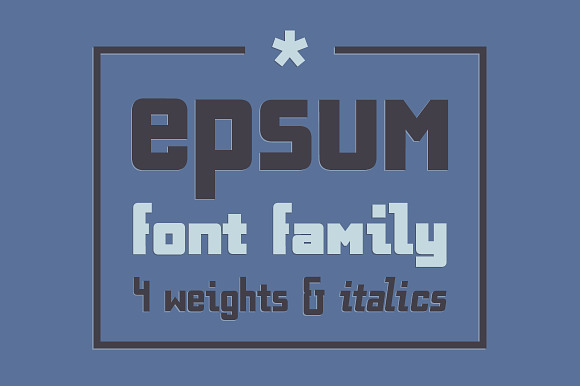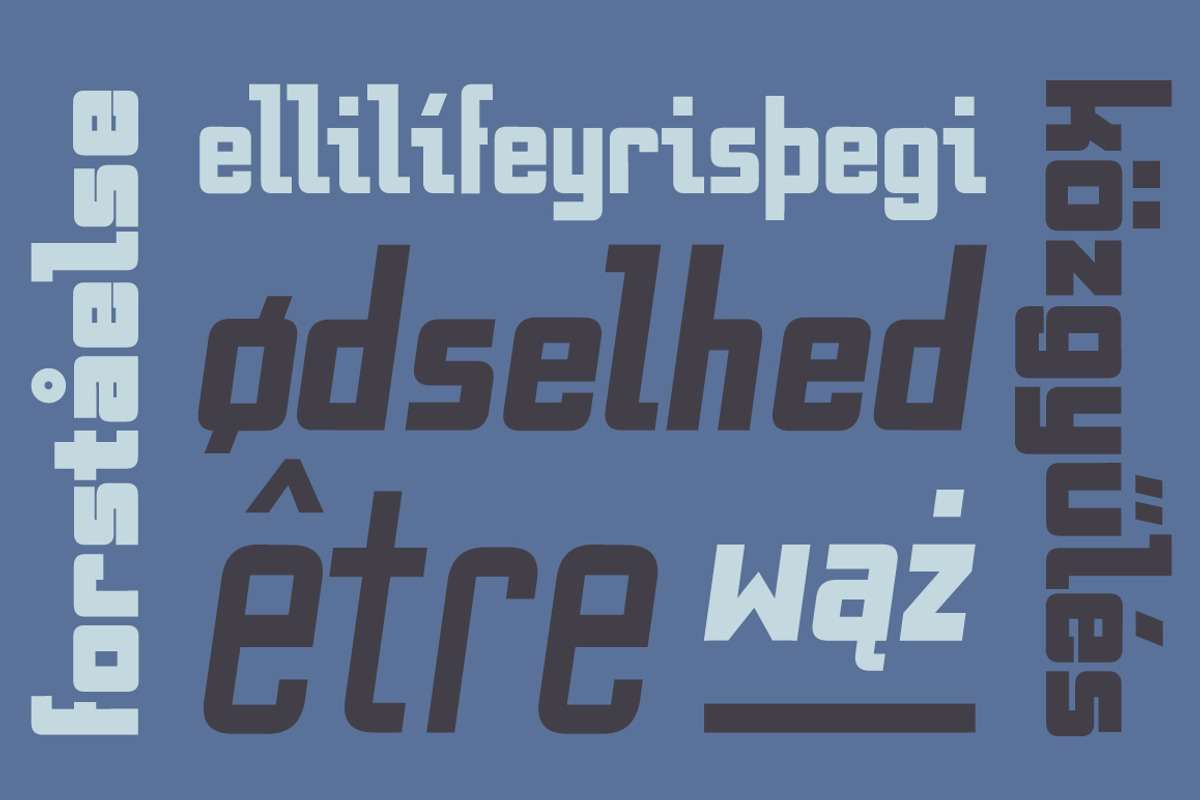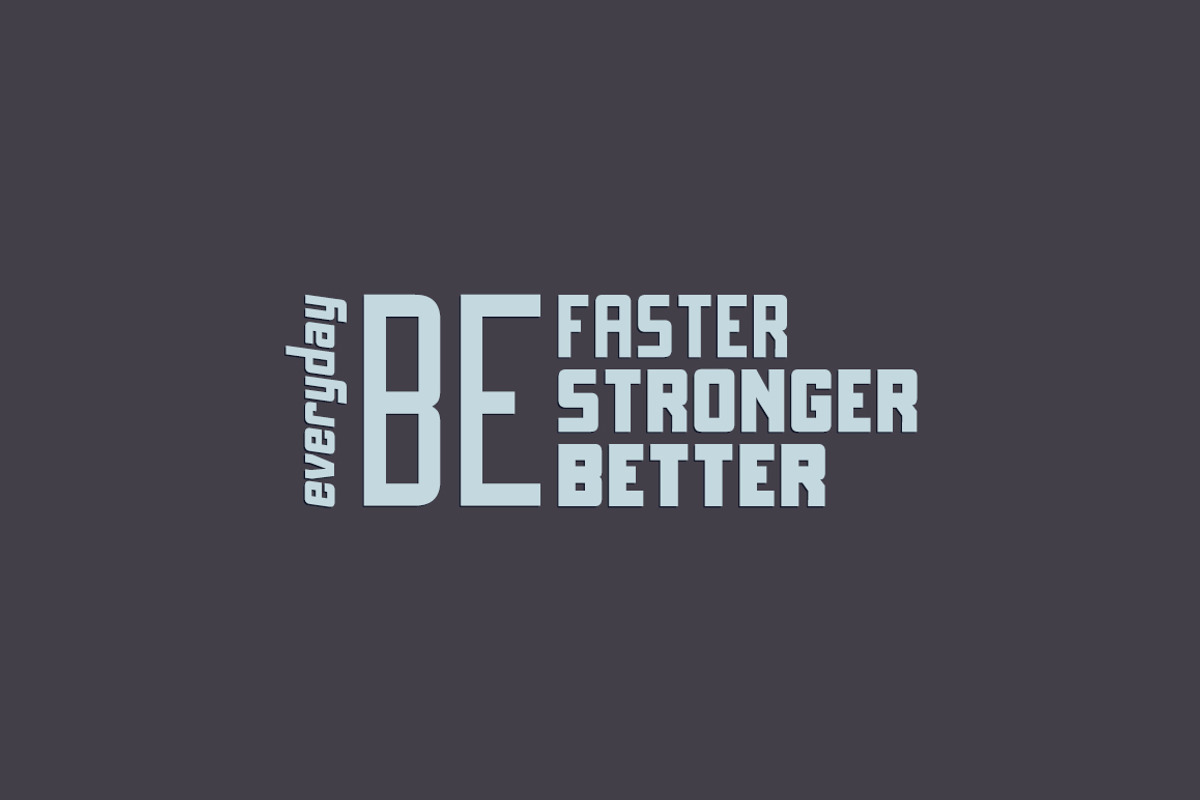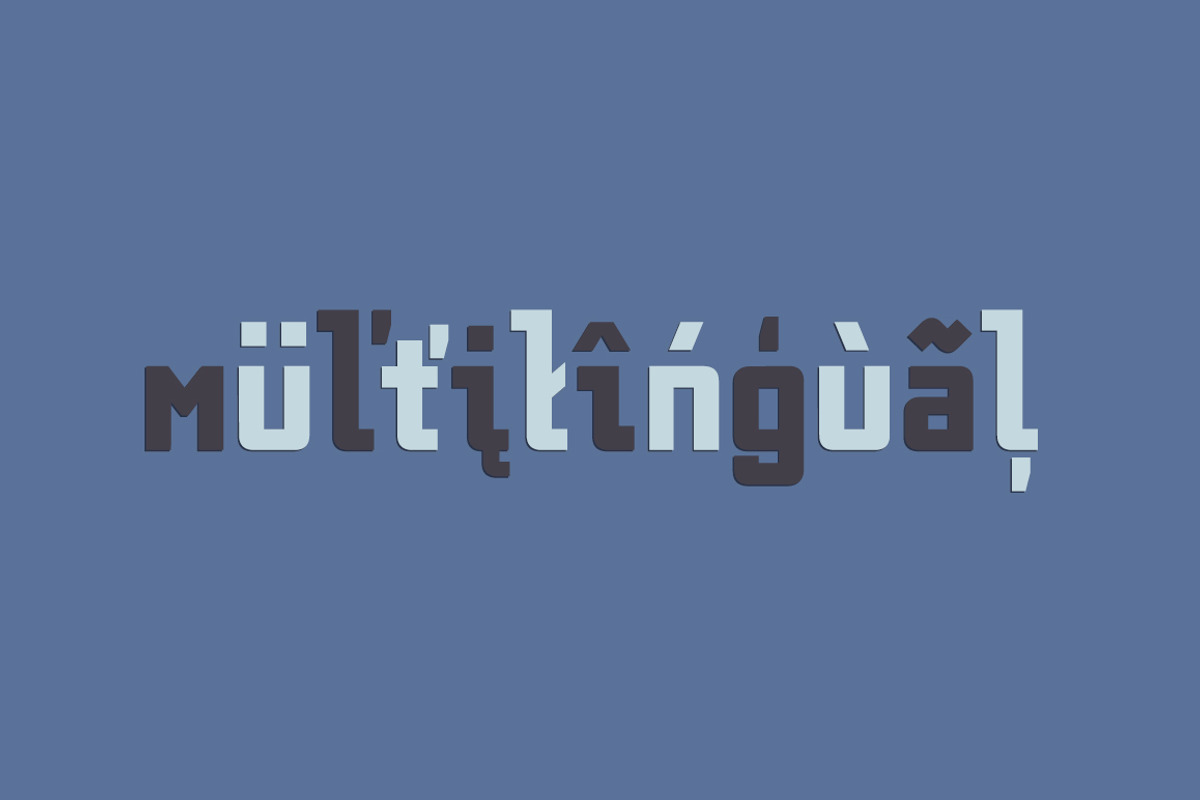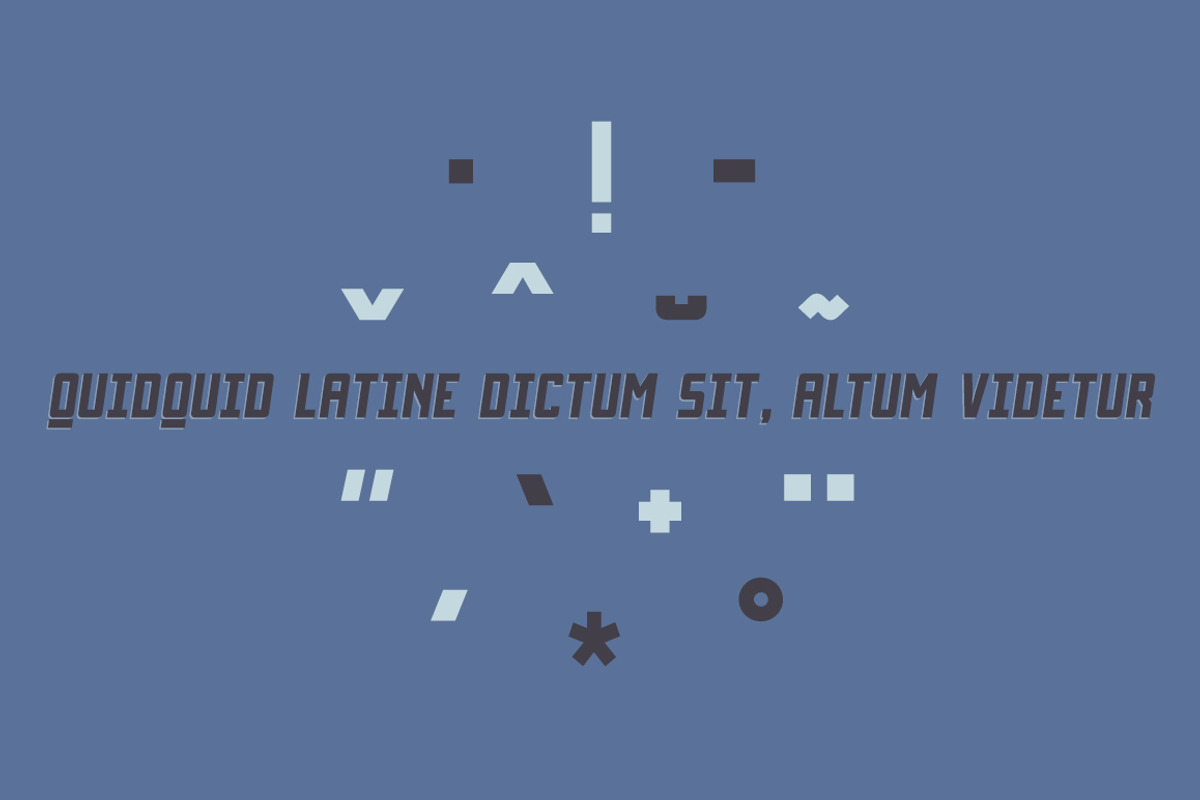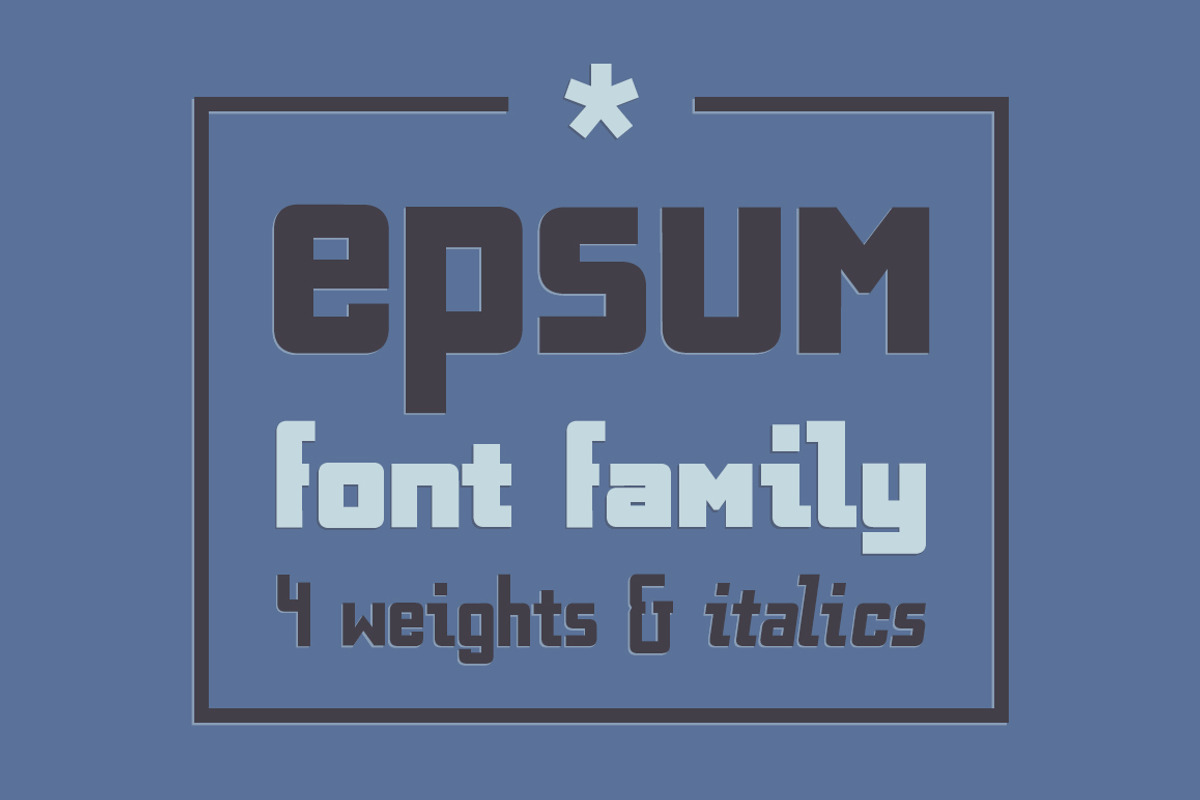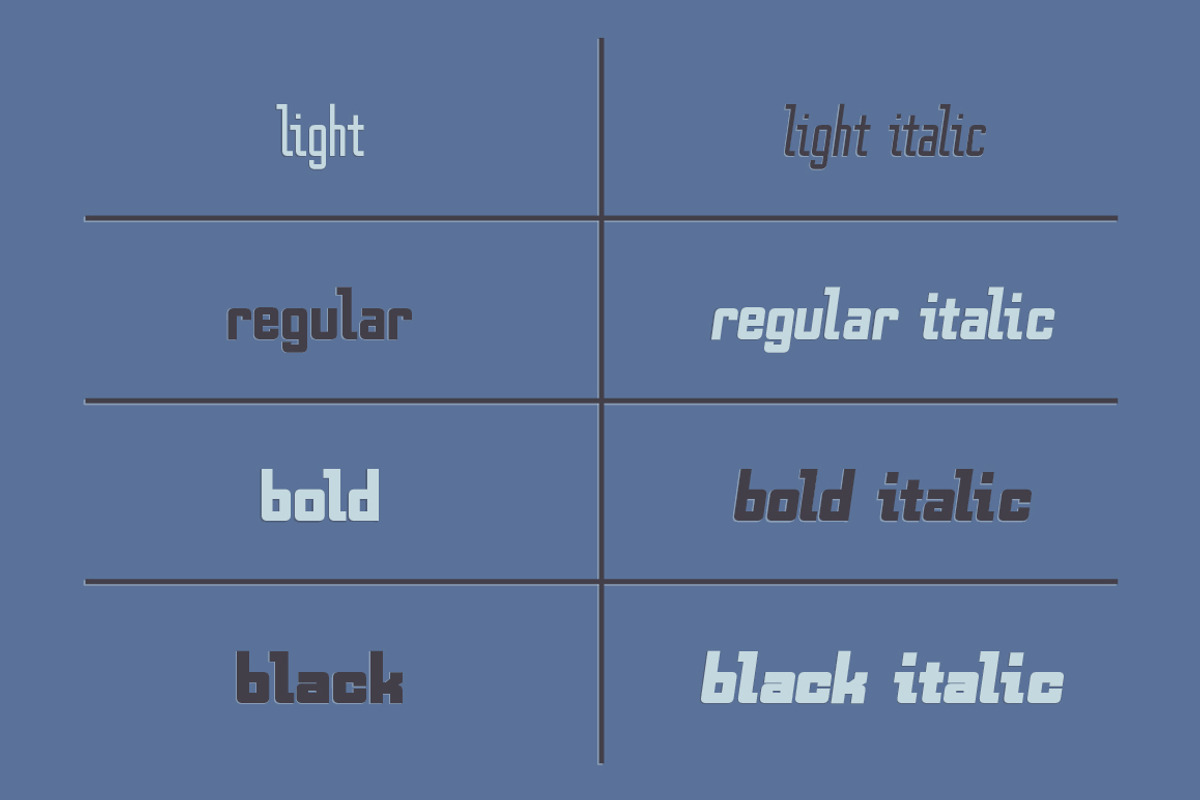
EPSUM Font Family
Epsum Font Family in 4 weights with italics.
Modern, strong typeface for confident design. Awesome in titles, on posters and branding.
EPSUM Font Family by Pan Cabaj fits naturally into Branding, posters, packaging, typography.